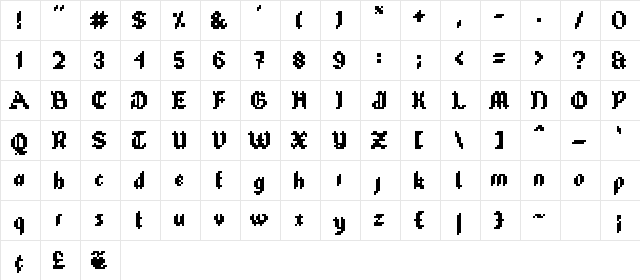
TubeOfCorn Medium Free Font
TubeOfCorn Medium
Design Context for TubeOfCorn
TubeOfCorn is a composed and adaptable typeface that performs quietly and consistently across a wide range of design contexts.